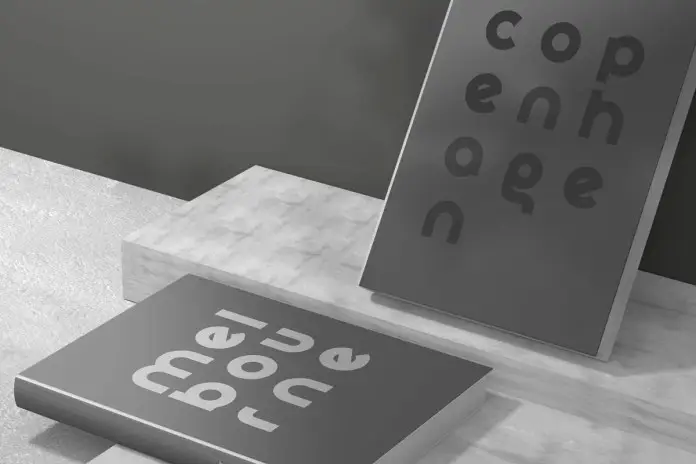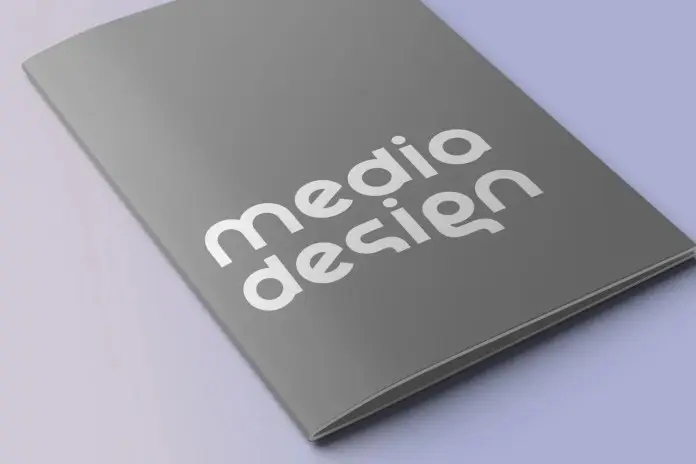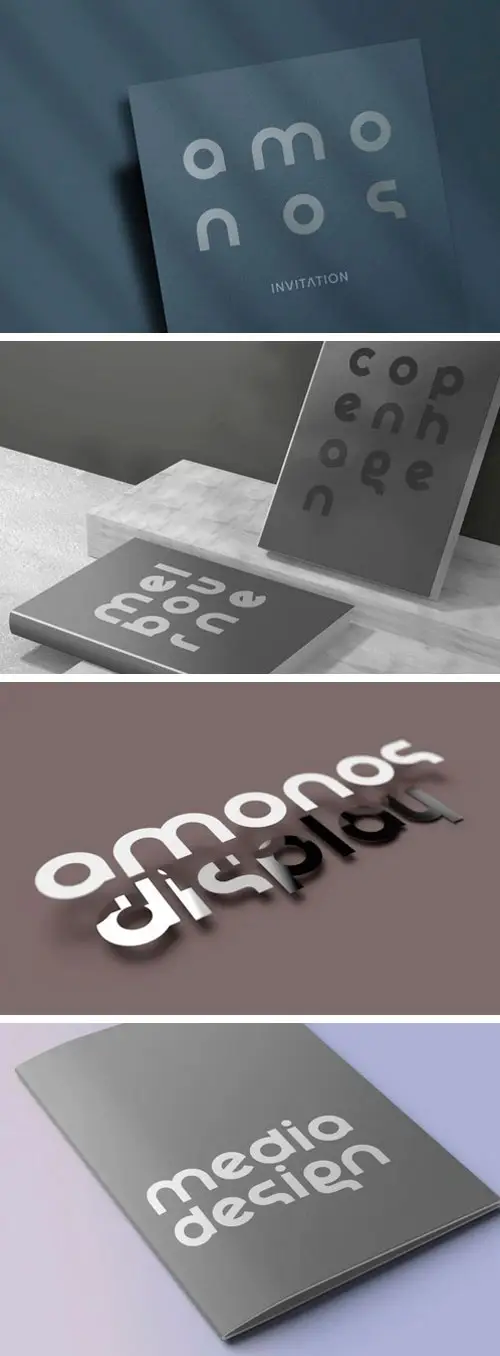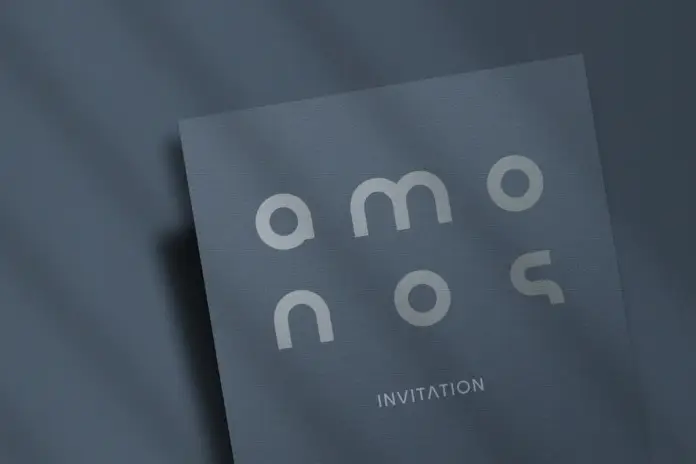
Amonos Display Font
The Amonos Display Font is a striking typeface designed to make your projects stand out. With its unique character shapes and bold presence, it is perfect for a wide range of applications including branding, logos, web design, and print materials.
• Distinctive display style
• Easy to read at various sizes
• Uppercase and lowercase characters
• Stylish numerals and punctuation
• Ideal for headlines and titles to grab attention
• Use in branding projects for a memorable impact
• Combine with complementary fonts for a balanced design